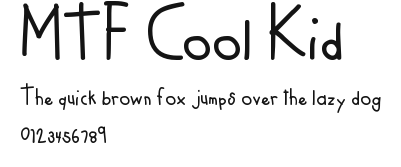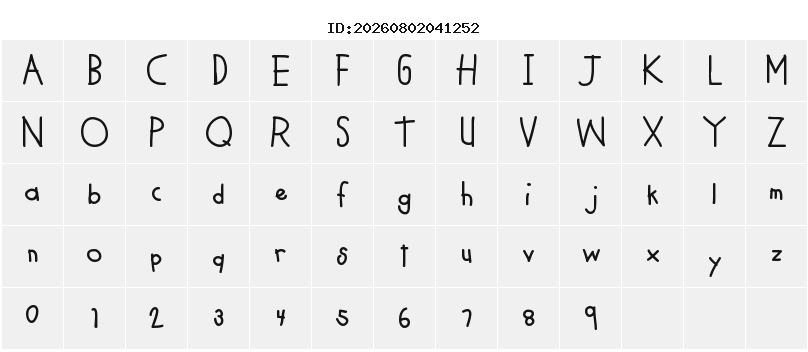
MTF Cool Kid Preview
• Font Name: MTF Cool Kid
• Full Font Name: MTF Cool Kid
• Designer: Miss Tiina
About MTF Cool Kid.ttf
MTF Cool Kid.ttf is a modern, elegant sans-serif font designed for ultimate readability and visual harmony. Perfect for branding, headlines, web design, and print materials.